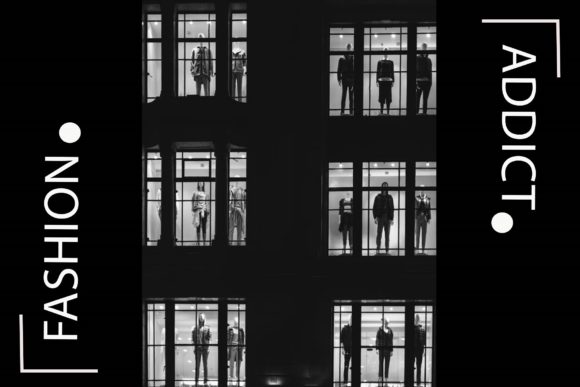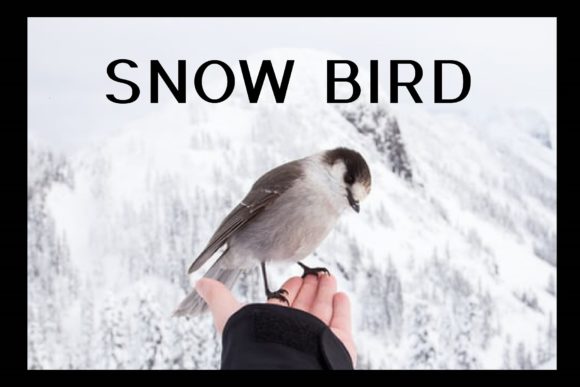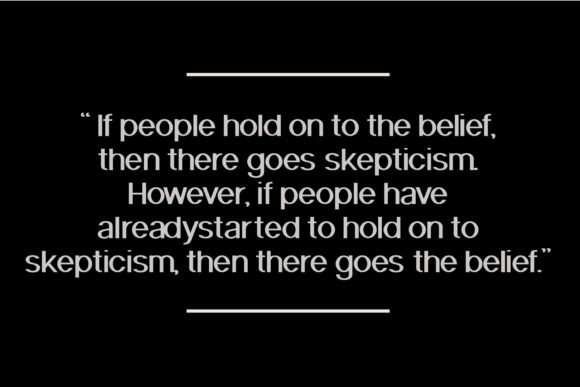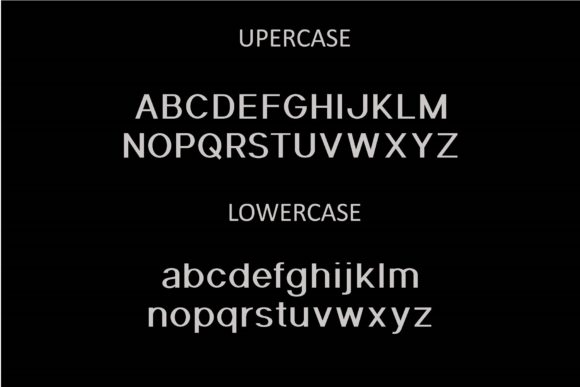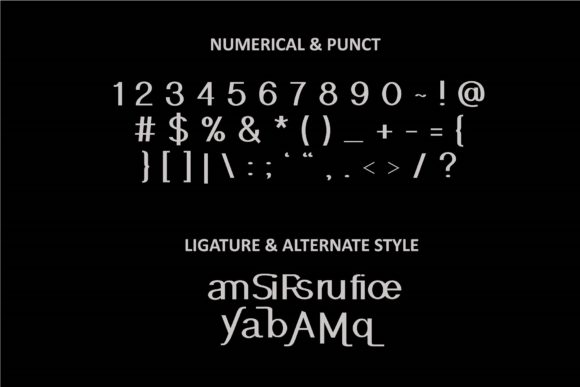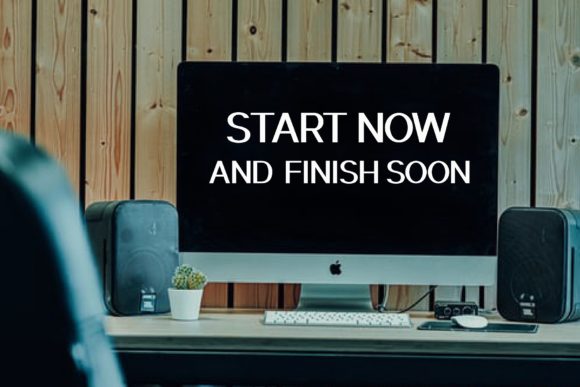
Introduction to Corch Font
As a designer, you know that finding the perfect font can make or break a project. You’ve spent hours pouring over options, trying to find that elusive combination of style and functionality that brings your vision to life. And then, like a breath of fresh air, you stumble upon Corch Font – a minimalist sans serif font that effortlessly elevates any design.
Imagine you’re working on a branding project for a tech startup, and you need a font that exudes modernity and sophistication. Or, picture yourself designing a website for a non-profit organization, and you require a font that conveys approachability and trust. Corch Font is the perfect solution for both scenarios, offering a clean and versatile design that can be easily paired with a transparent background to give your creative project a professional touch.
With Corch Font, you can take your design to the next level and create a high-quality visual identity that stands out from the crowd. And the best part? It’s available for free download, making it an invaluable resource for designers of all levels. Whether you’re a seasoned pro or just starting out, Corch Font is sure to become a trusted design companion.
Key Features of Corch Font
- High-quality design resource with a unique and creative style, ideal for various projects.
- Comes with a transparent background, allowing for seamless integration with other design elements.
- Features a large character set, making it suitable for extended text and creative projects.
- High-resolution design, suitable for print and digital use, with a resolution of 300 DPI.
- Designed to be versatile and adaptable, perfect for a wide range of creative projects and design needs.
Honest Review: Corch Font
As a designer, I’m always on the lookout for high-quality design resources to elevate my creative projects. Recently, I stumbled upon the Corch Font, and I’m excited to share my honest review with you.
- ✨ The Corch Font offers a unique and modern design aesthetic that’s perfect for minimalist and futuristic-inspired projects.
- ✨ The transparent background option provides a clean and versatile look that can be easily customized to suit various design needs.
- ⚠️ The font may not be suitable for projects that require a more traditional or classic look, as its modern design might clash with older styles.
- ⚠️ Some users may experience issues with font rendering, particularly on lower-resolution screens or older operating systems.
Overall, I’m impressed with the Corch Font’s high-quality design and versatility. While it may have some limitations, I believe it’s a valuable addition to any design resource collection, especially for those working on modern and futuristic-inspired projects.
The Corch Font is versatile and can be used in a variety of creative projects, including logos, graphics, presentations, and documents. Its transparent background feature makes it easy to integrate with other design elements. You can also use it as a free download for personal or commercial projects.
To get the most out of the Corch Font, experiment with different font sizes, colors, and styles to create a unique look. You can also combine it with other design elements, such as images and graphics, to add depth and interest to your design.
Is Corch Font available in various weights and styles, and can I use it for print and digital designs?
Yes, Corch Font is available in multiple weights and styles, including bold, italic, and regular. This allows you to use it for a range of design projects, from print materials like business cards and brochures to digital designs like social media graphics and website headers.